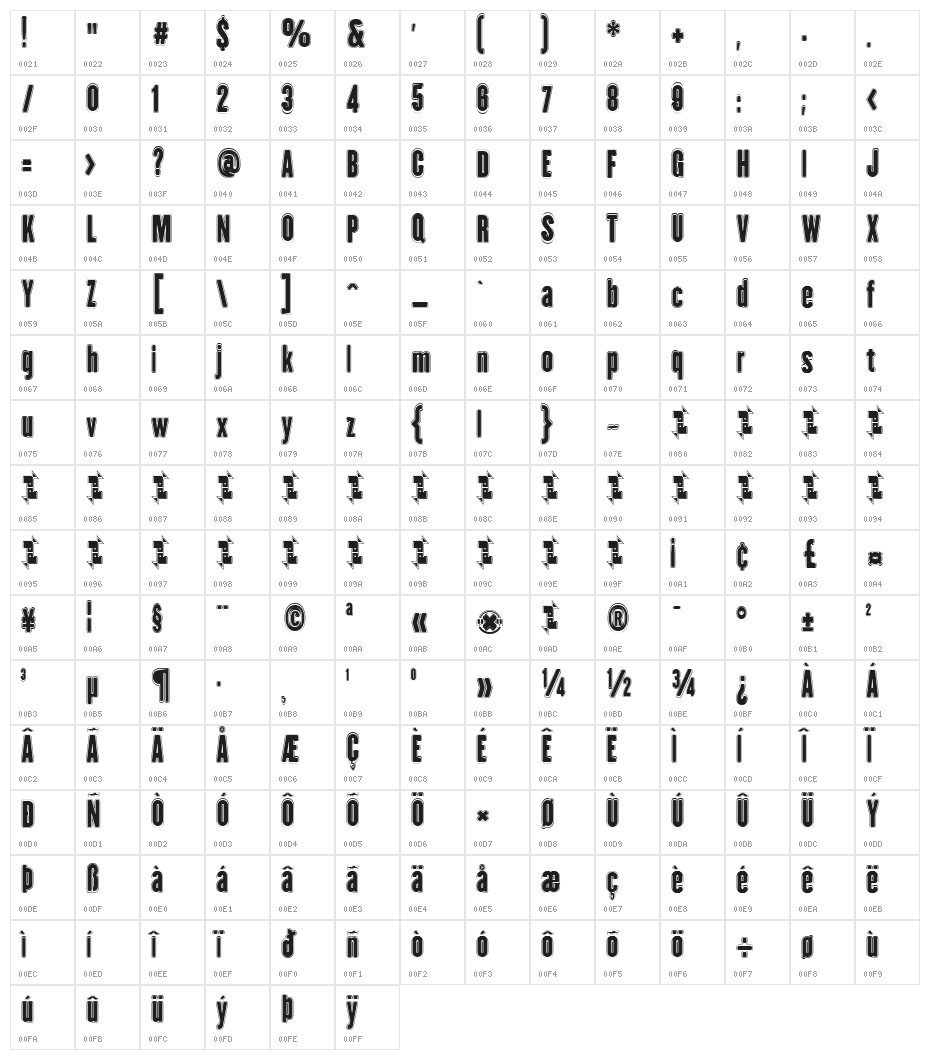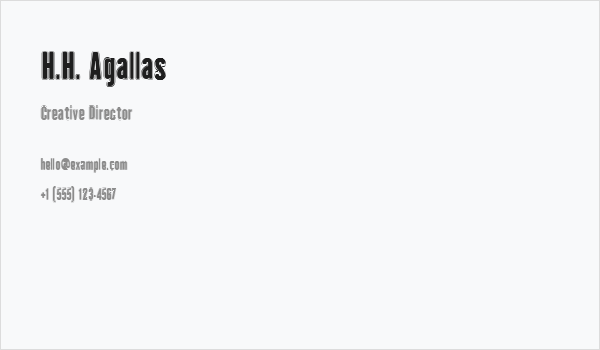
H.H. Agallas Font
H.H. Agallas Description
This font features bold, uppercase and lowercase letters with a strong, impactful presence. The characters are outlined, giving them a three-dimensional effect that enhances their visibility and makes them stand out. The design is clean and modern, with uniform stroke widths and a consistent style across all characters. The numbers and special characters maintain the same bold outline, ensuring a cohesive look. This font is ideal for creating attention-grabbing headlines or titles due to its striking appearance.
| Proposed Projects | Ideal for posters, headlines, branding, and advertising materials where a strong visual impact is needed. |